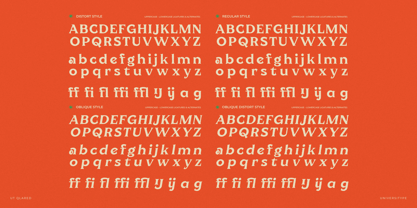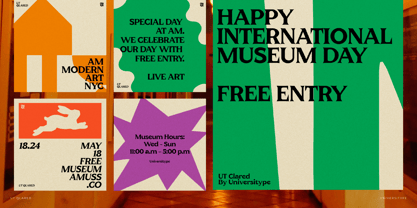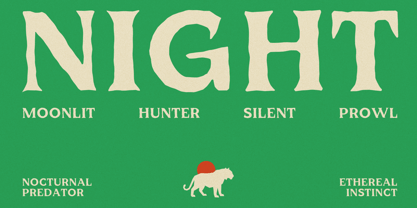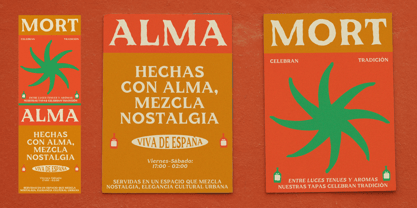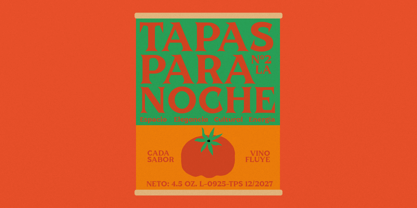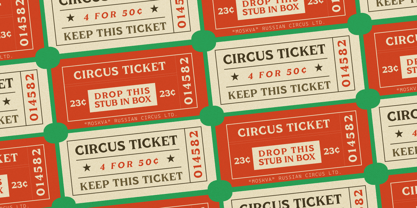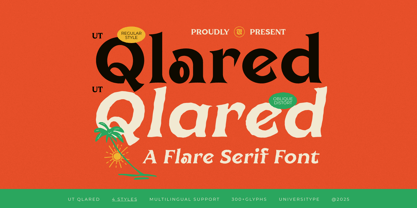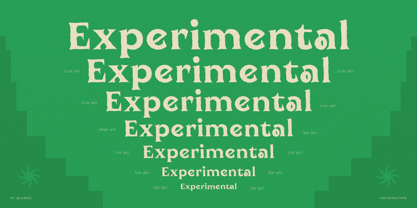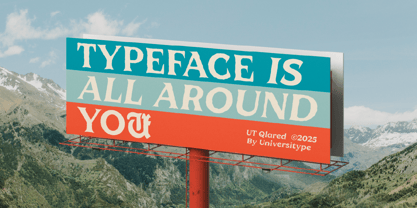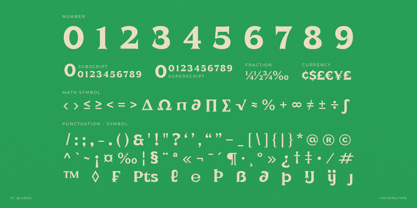
UT Qlared
La familia tipográfica UT Qlared fue diseñada por Muh. Aswar, Andi Syahdang y publicada por Universitype. UT Qlared contiene 4 estilos y opciones de paquete familiar. Más información sobre esta familia
UT Qlared is a bold flare serif typeface designed to bring attitude and rhythm into modern design work. Sharp, tapered serifs collide with fluid, liquid-like terminals, creating a look that feels expressive, confident, and editorial-driven. Built with strong contrast and distinctive shapes, UT Qlared performs best where typography needs to lead the visual story. From clean and controlled layouts to textured, print-inspired compositions, its four styles let you shift tone without switching typefaces. Perfect for branding, packaging, editorial layouts, posters, apparel graphics, and standout digital content. What’s Included Regular Oblique Distort Why You’ll Love It Flare serif construction with bold personality Distort styles inspired by vintage ink-bleed textures Rich ligatures and stylistic alternates for custom-looking typography Strong uppercase forms for headlines and logos Works beautifully in both print and digital projects Technical Info 300+ glyphs Extensive Latin language support OpenType features: ligatures, stylistic alternates